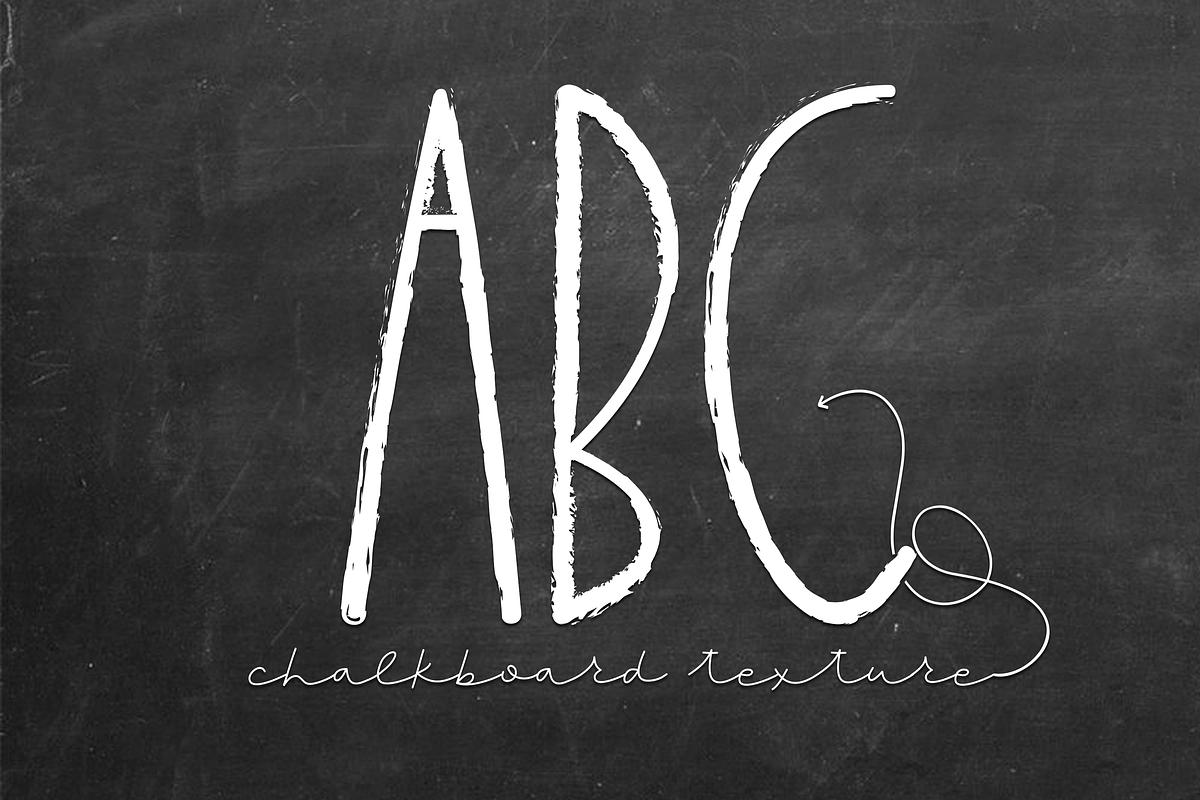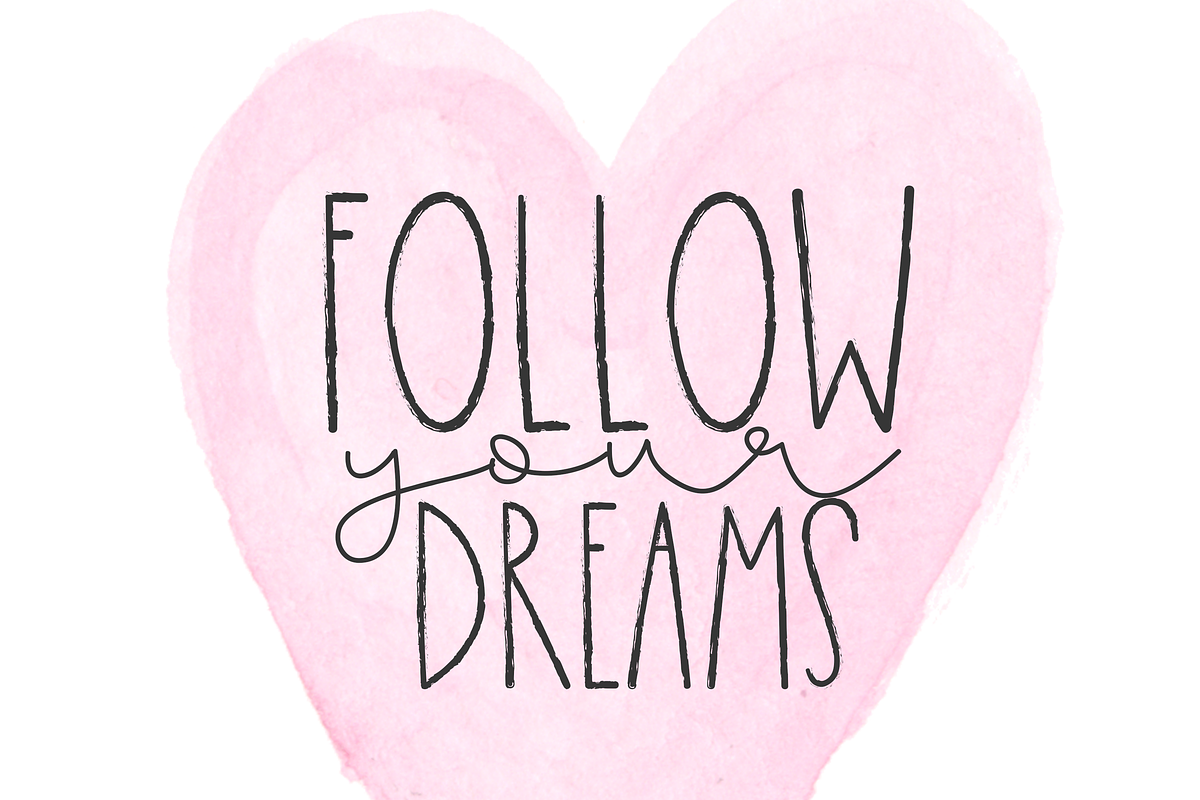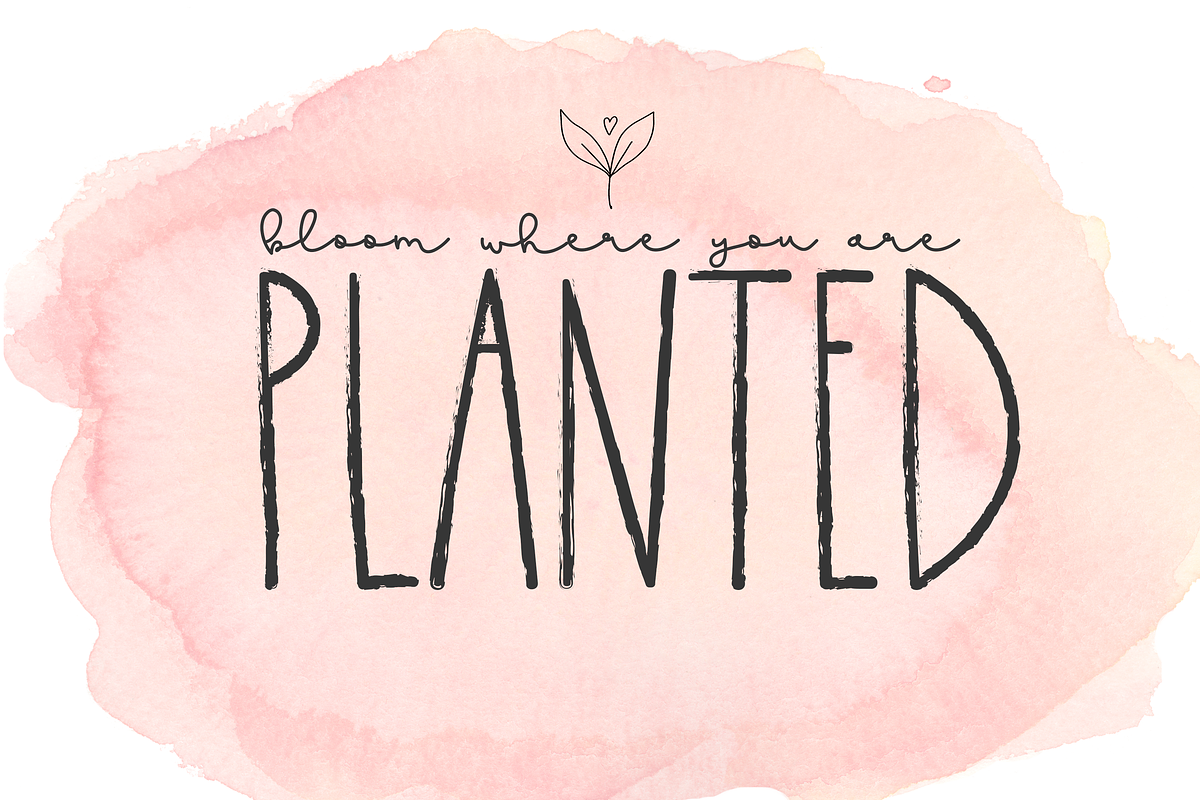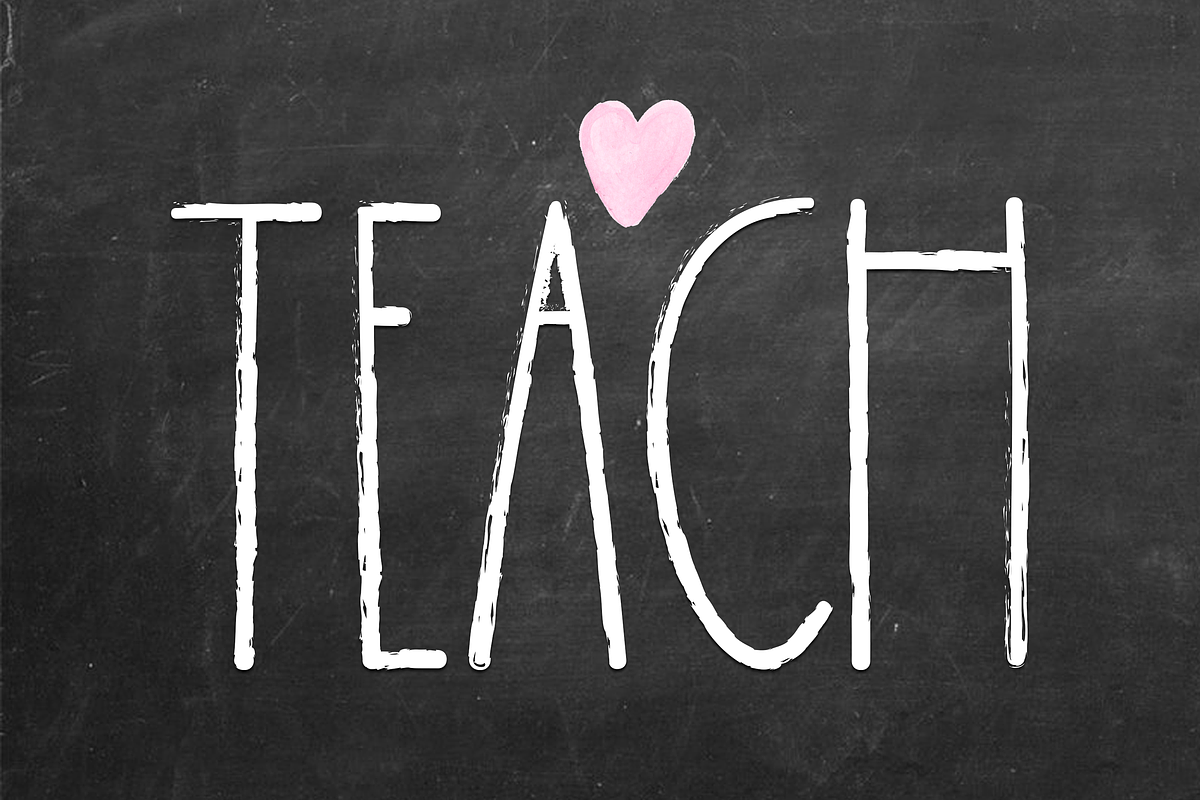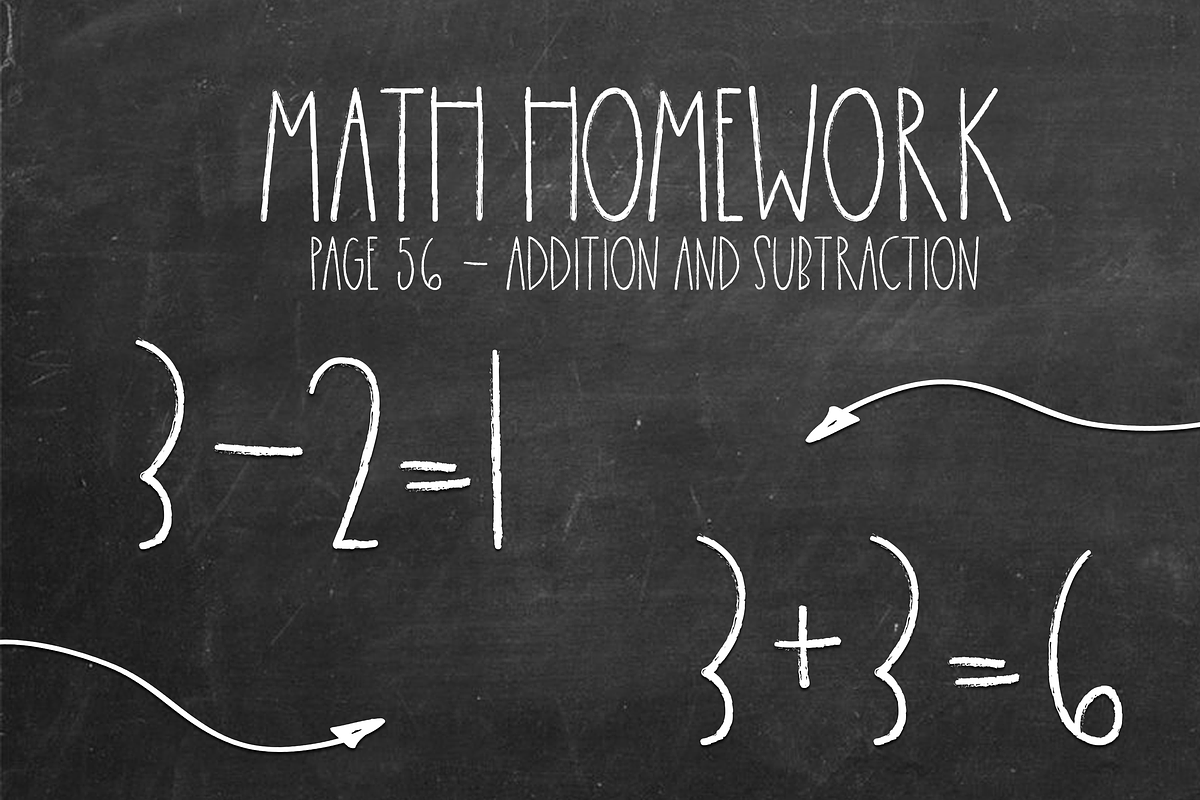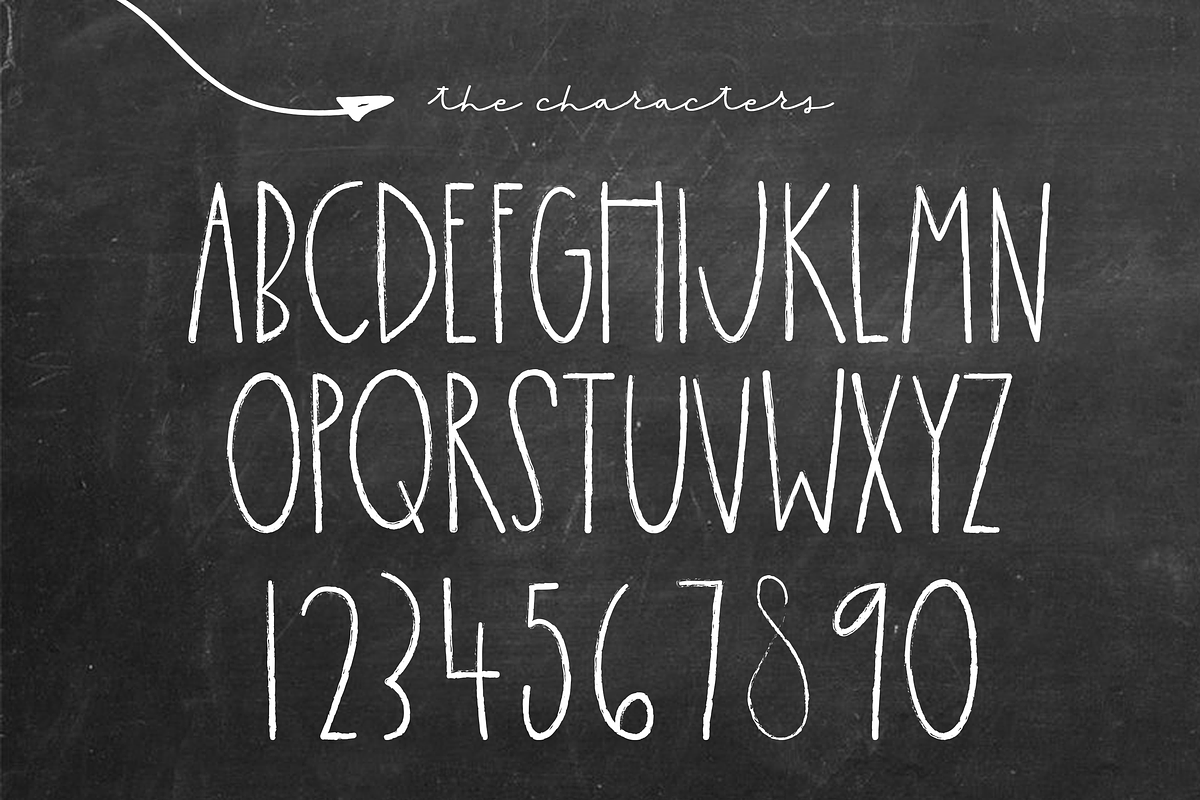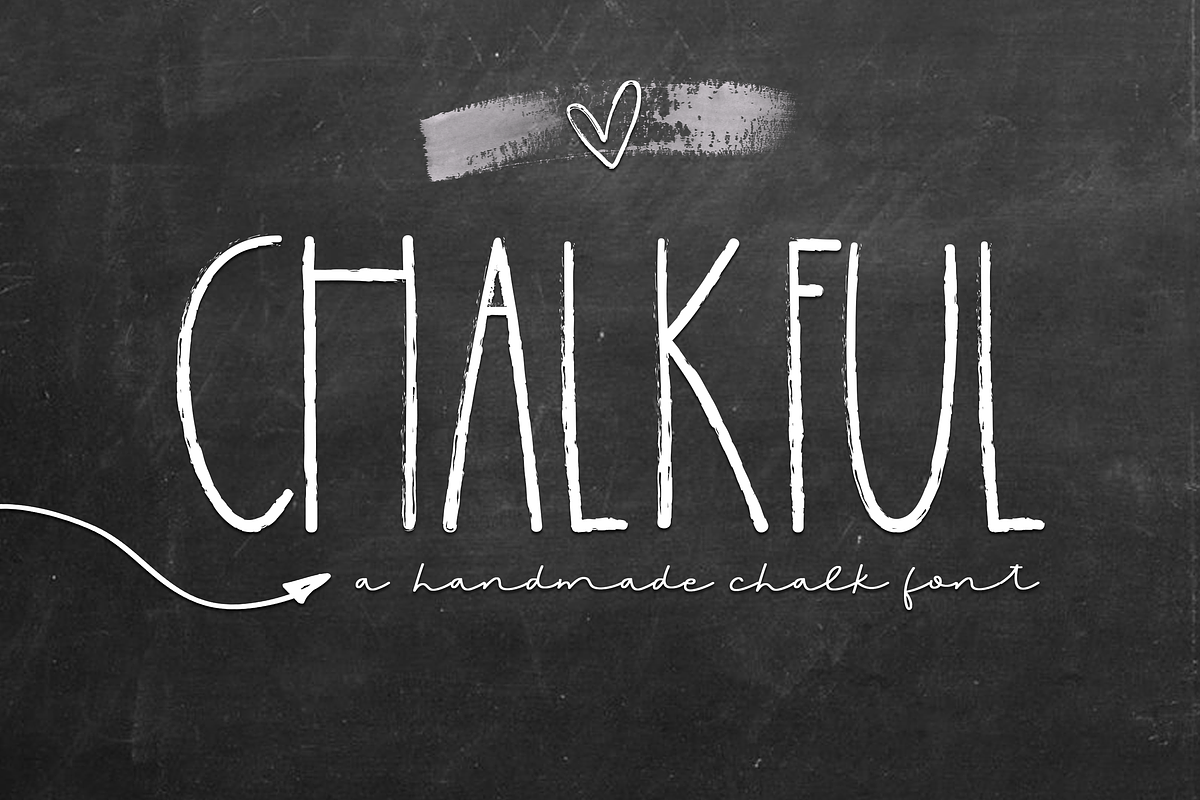
Chalkful - A Handmade Chalk Font
Chalkful is a cute handwritten font.
It has been handmade to look like "chalkboard writing" This font is perfect for quotes, headings, designs, logos, invitations and more! It is also great for children's designs!